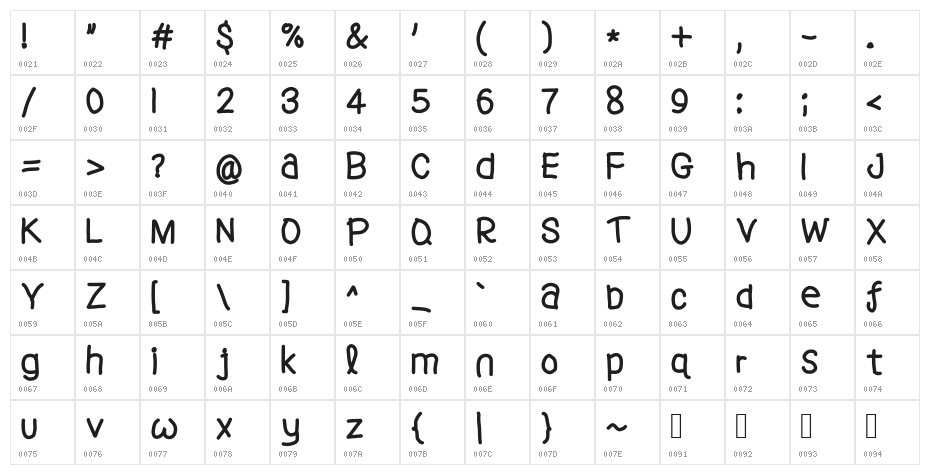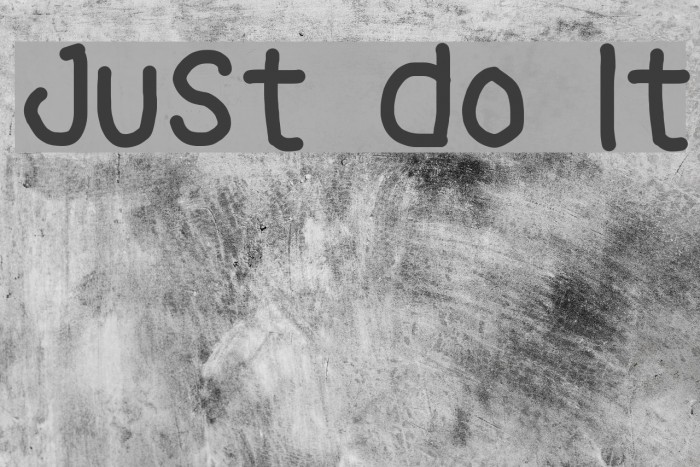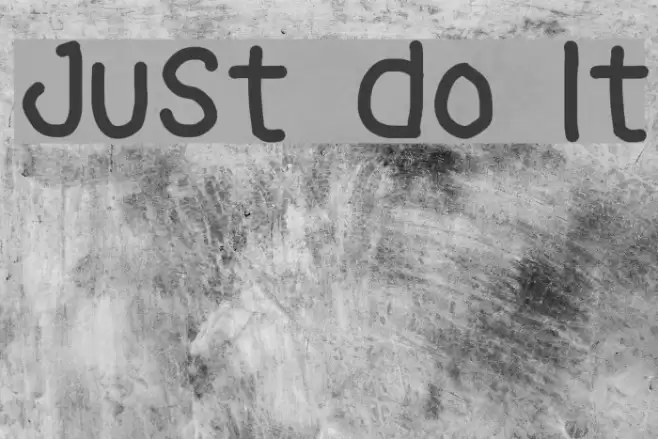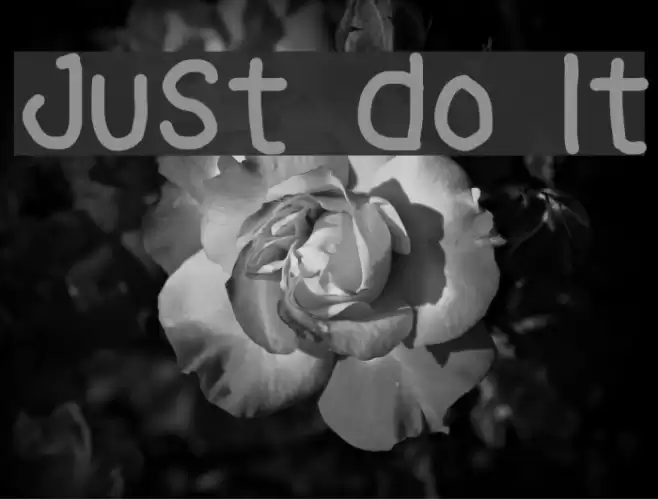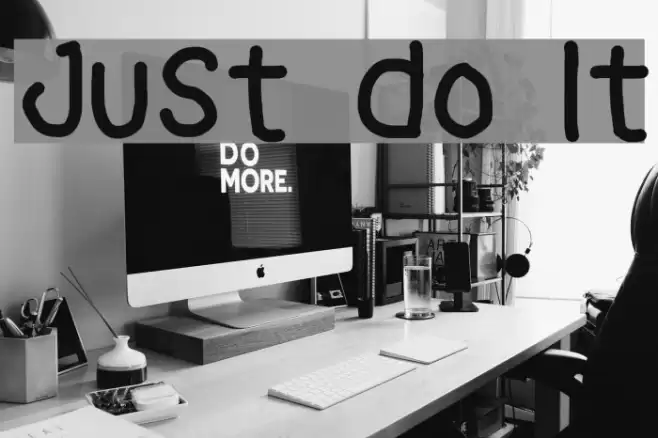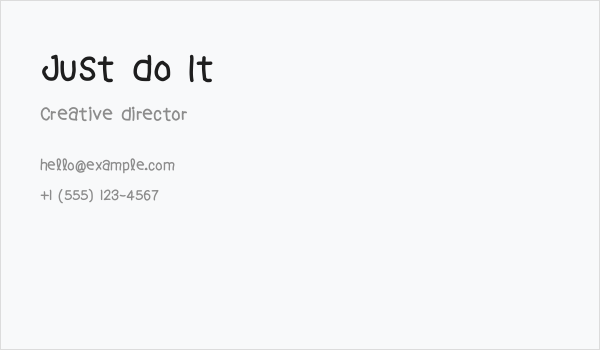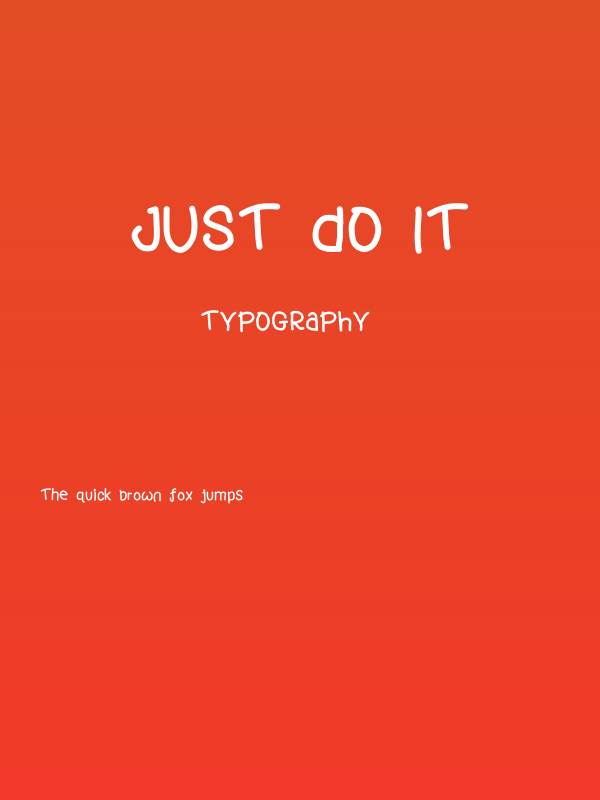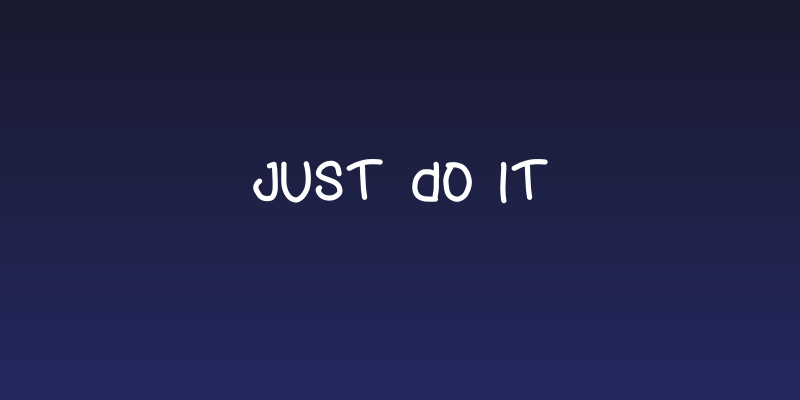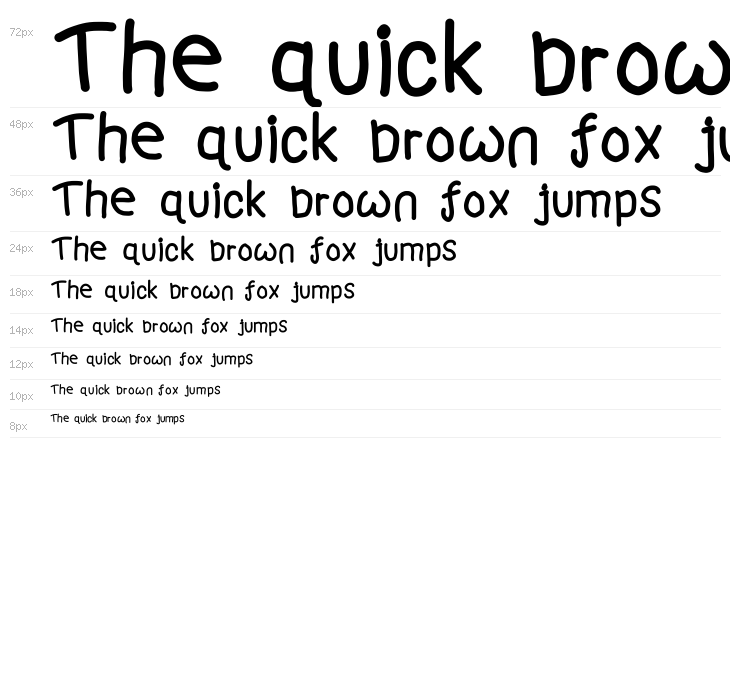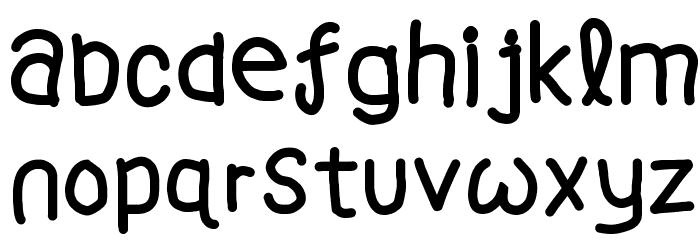
Just Do It Font
Just Do It Description
This playful and informal font features rounded, hand-drawn characters that convey a sense of whimsy and creativity. The letters are slightly irregular, adding to the casual and friendly appearance. The font maintains a consistent stroke width throughout, giving it a uniform look despite its quirky style. The characters are well-spaced, ensuring readability while maintaining the font's unique charm. This style is reminiscent of handwriting, making it suitable for projects that require a personal touch. The numerals and special characters are designed to match the playful aesthetic, ensuring a cohesive look across all text elements.
| Proposed Projects | Ideal for children's books, greeting cards, playful branding, and casual invitations. |